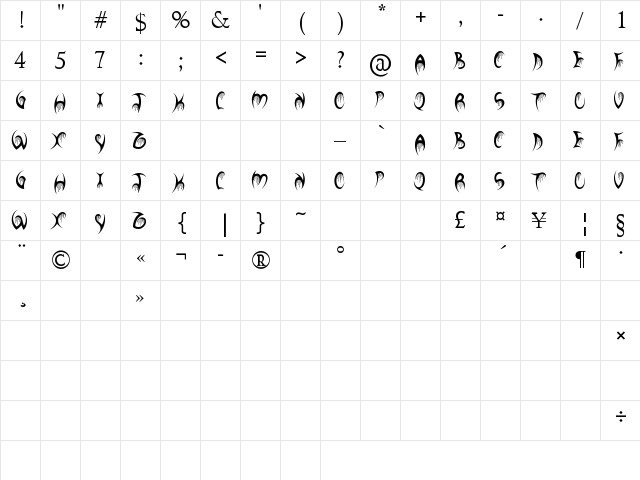
Your Bloody Choice Regular
Design Context for Your Bloody Choice Typeface
Your Bloody Choice leans into the macabre with letterforms designed to disturb and intrigue in equal measure.
Perfect for anything that needs to unsettle — game titles, horror branding, and macabre invitations.
Font Pairing: Pair with a clean neutral sans-serif for body copy to let Your Bloody Choice's character lead without overwhelming the composition.
Pro Tip: Use Your Bloody Choice at larger display sizes for maximum impact. Consider generous tracking to let the disturbing character of each letterform breathe.